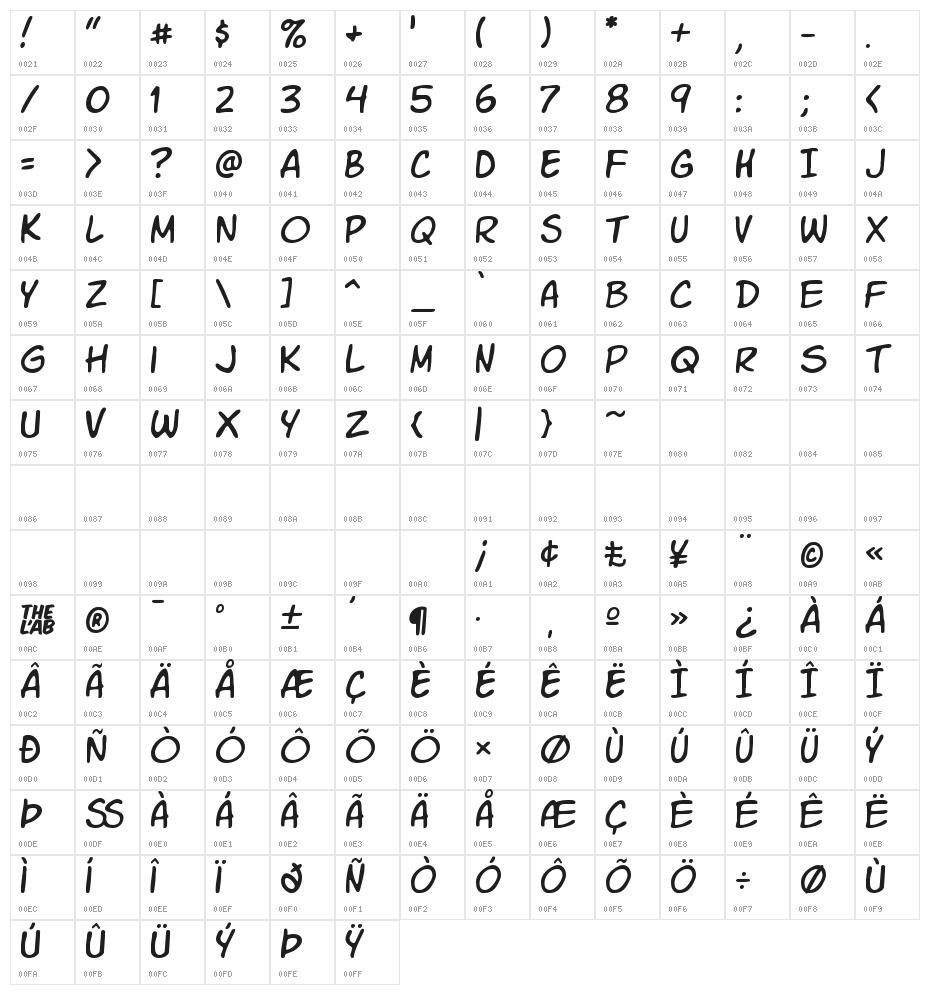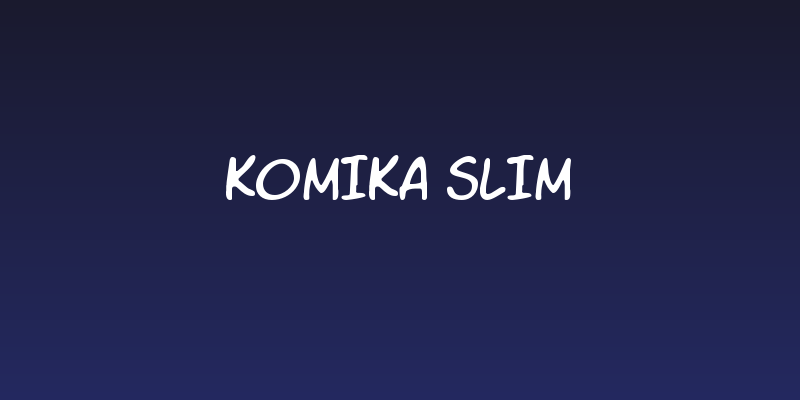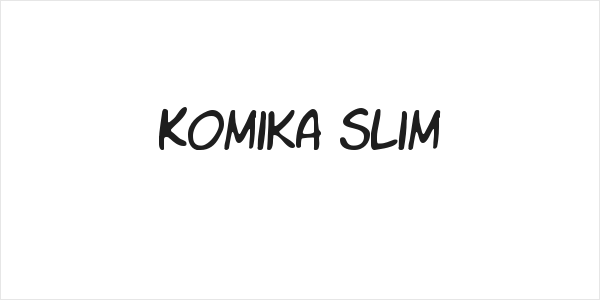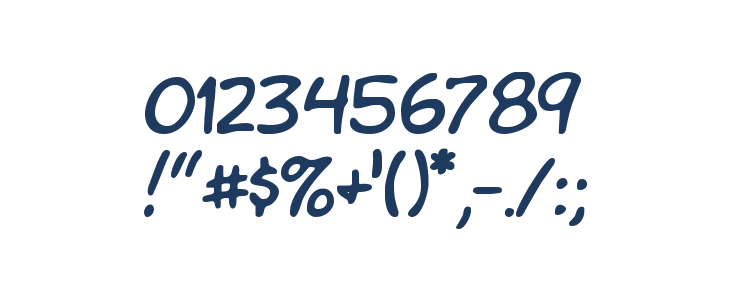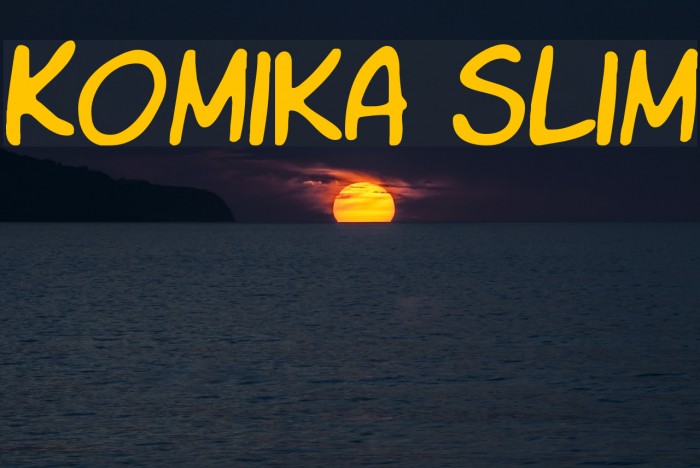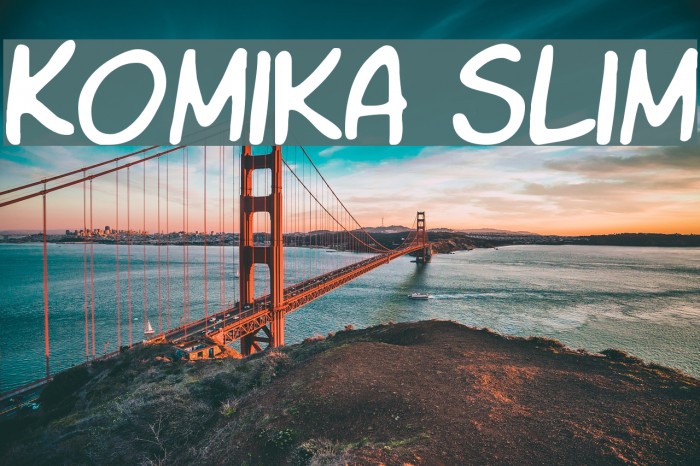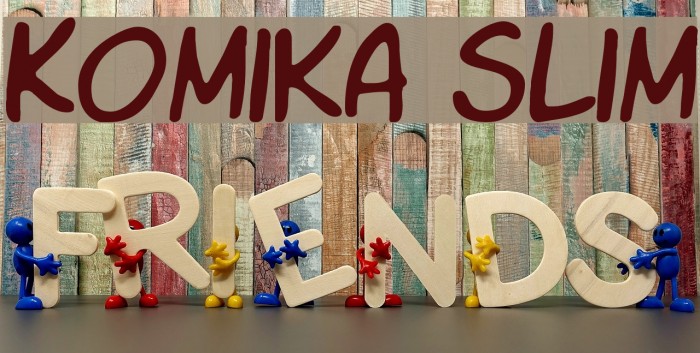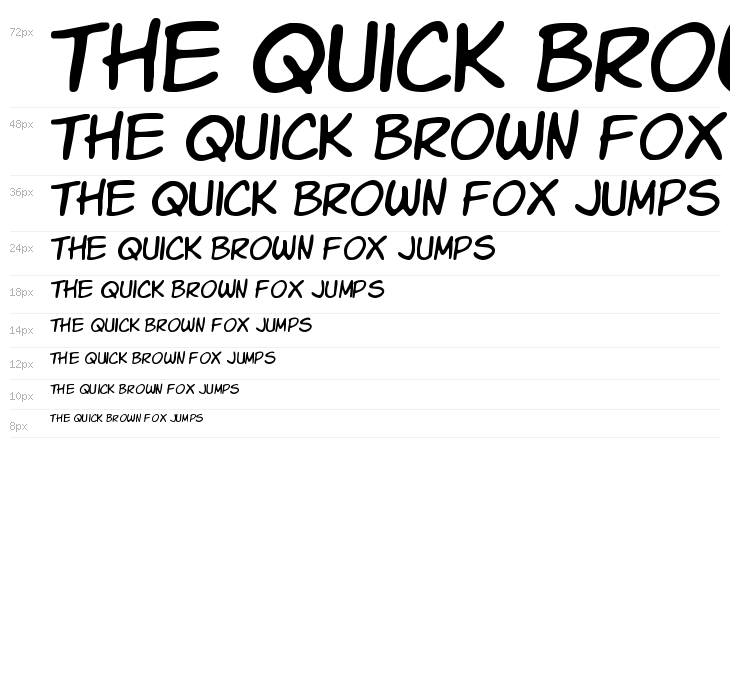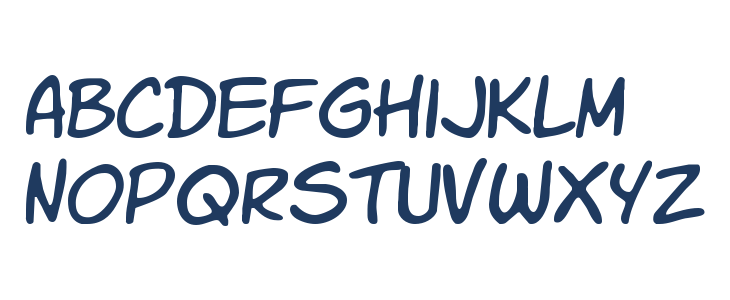
Komika Slim Font
Komika Slim Description
This font features a playful and informal style with a handwritten appearance. The characters are bold and rounded, giving them a friendly and approachable look. The strokes are consistent in thickness, providing a uniform appearance across all characters. The font includes both uppercase and lowercase letters, numbers, and a variety of special characters. Its casual and fun design makes it suitable for projects that require a personal touch or a less formal tone.
| Proposed Projects | Ideal for comic books, children's books, casual posters, and playful branding. |